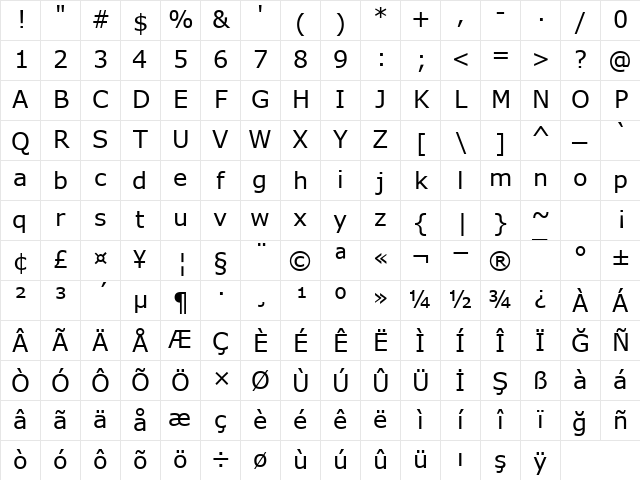
Complete Verdana Digiscream Normal glyph index. Displaying only characters natively supported by Verdana Digiscream Normal font.
Verdana Digiscream is a composed and adaptable typeface that performs quietly and consistently across a wide range of design contexts.